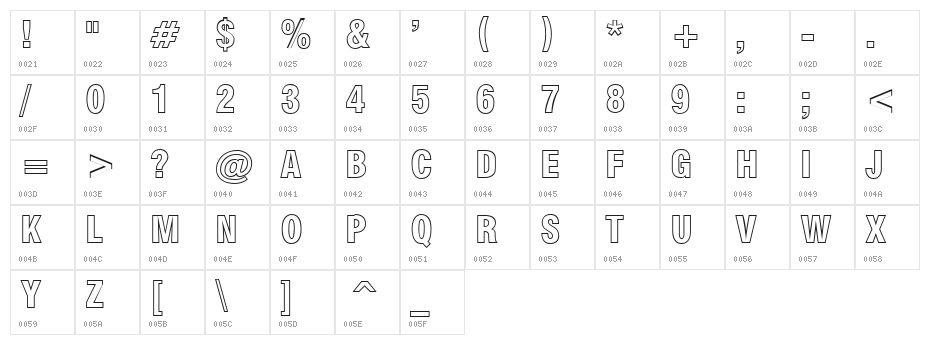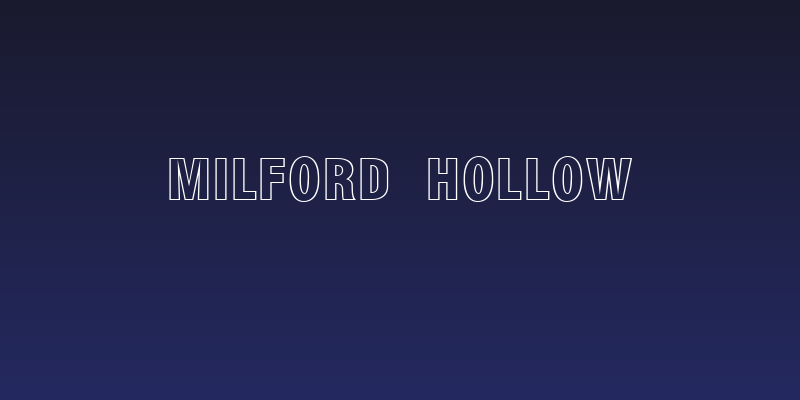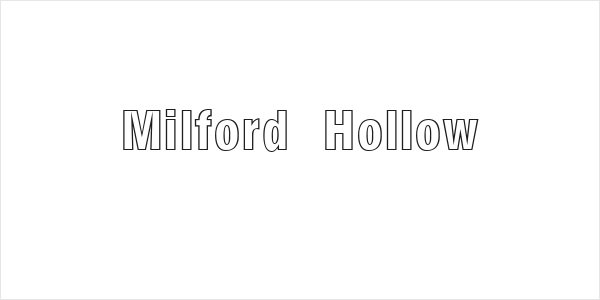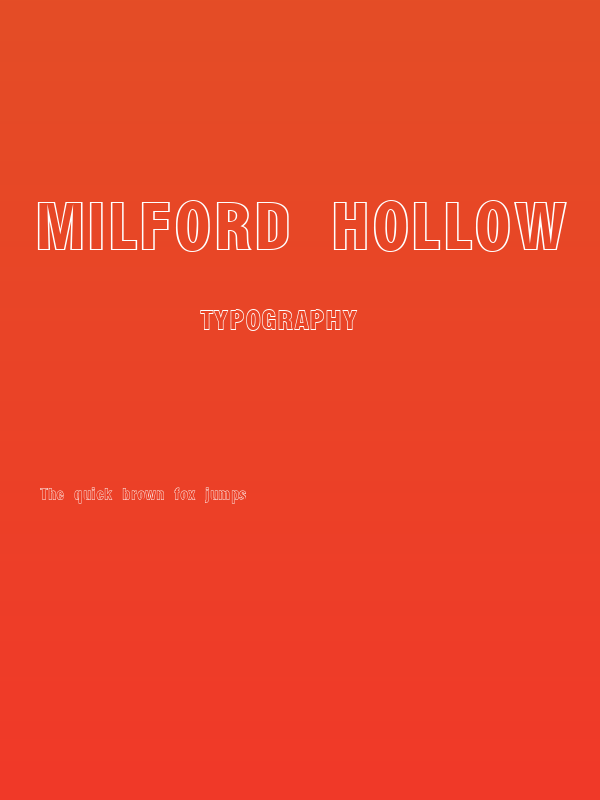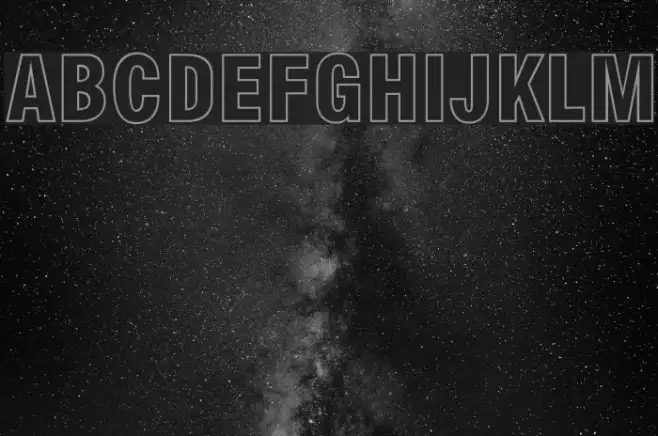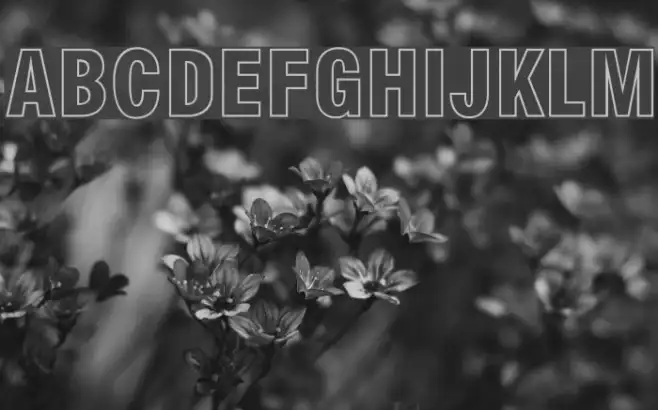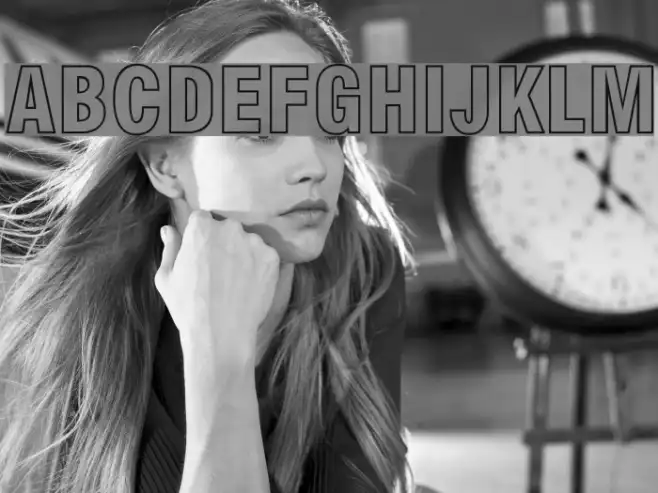
Milford Hollow Font
Milford Hollow Description
This typeface features a hollow, outlined style that gives it a distinctive and modern appearance. The uppercase and lowercase letters are uniform in width, providing a clean and structured look. The characters are well-defined with sharp edges, and the hollow design adds a unique touch, making it stand out in various design contexts. The numerals and special characters maintain the same hollow aesthetic, ensuring consistency across all glyphs. This font is versatile, suitable for both digital and print media, and can be used to create eye-catching headlines or logos. Its clear and bold outline makes it ideal for designs that require a strong visual impact.
| Proposed Projects | Ideal for branding, posters, headlines, and any project requiring a modern and impactful typeface. |